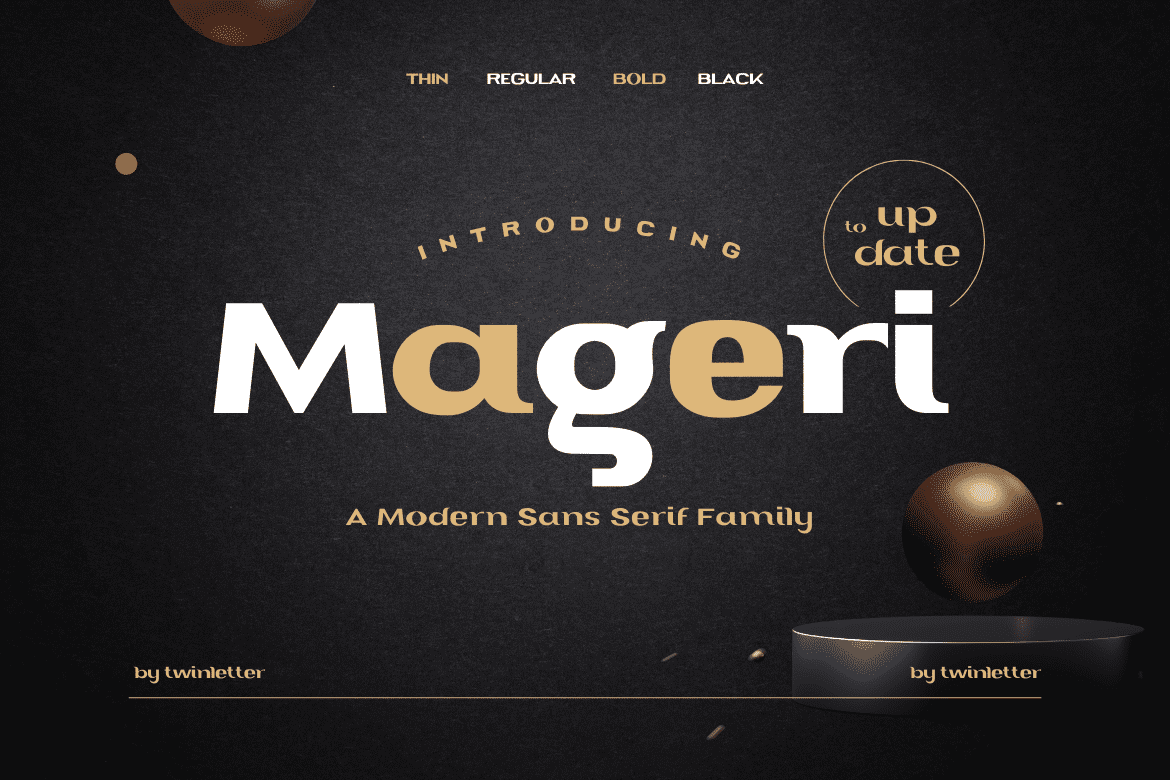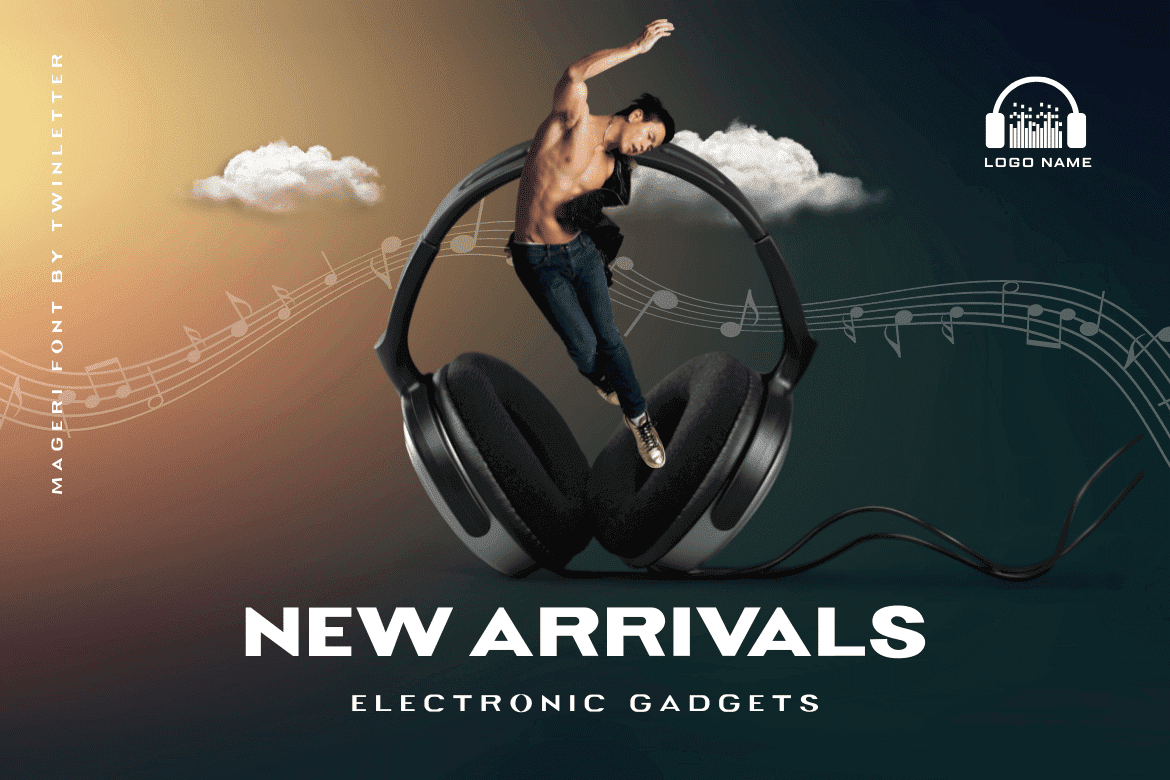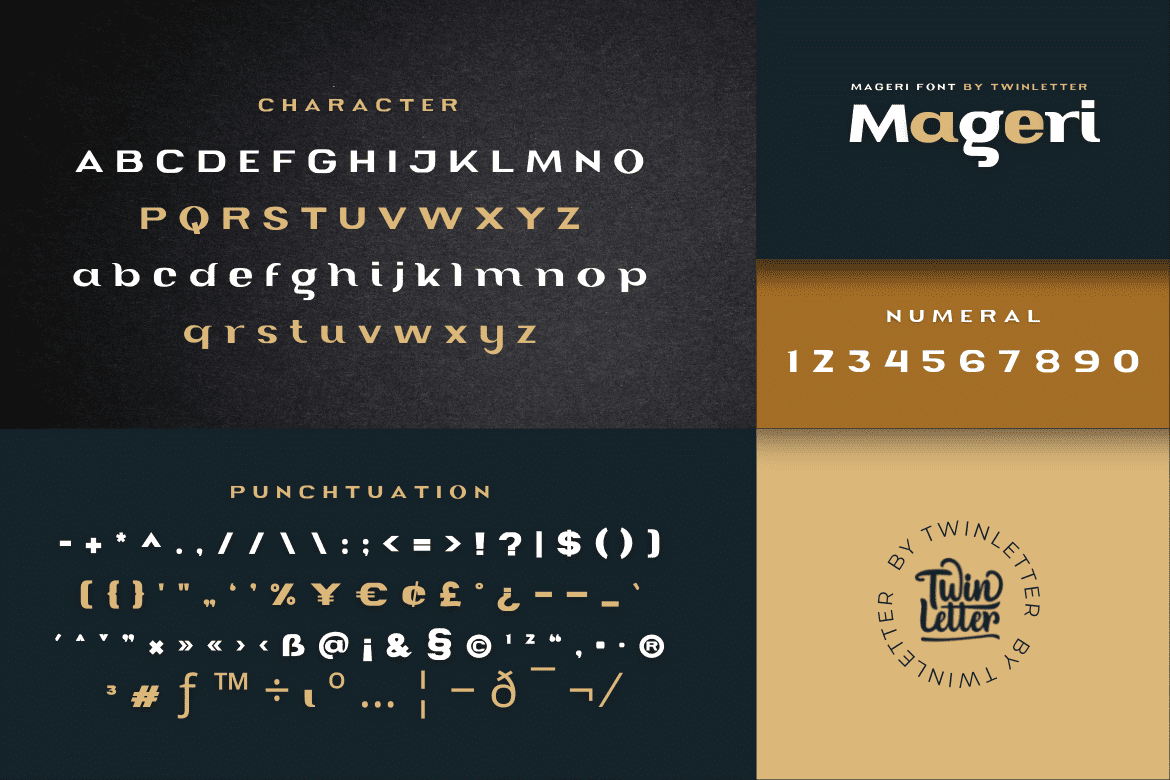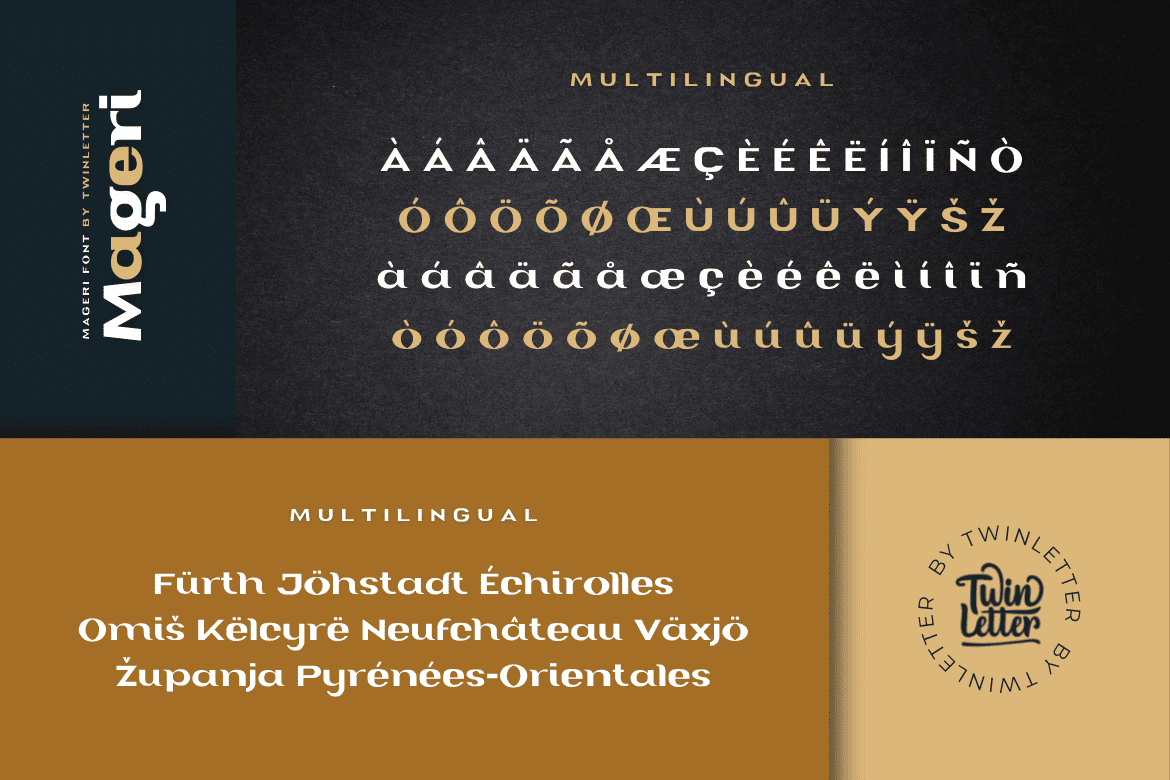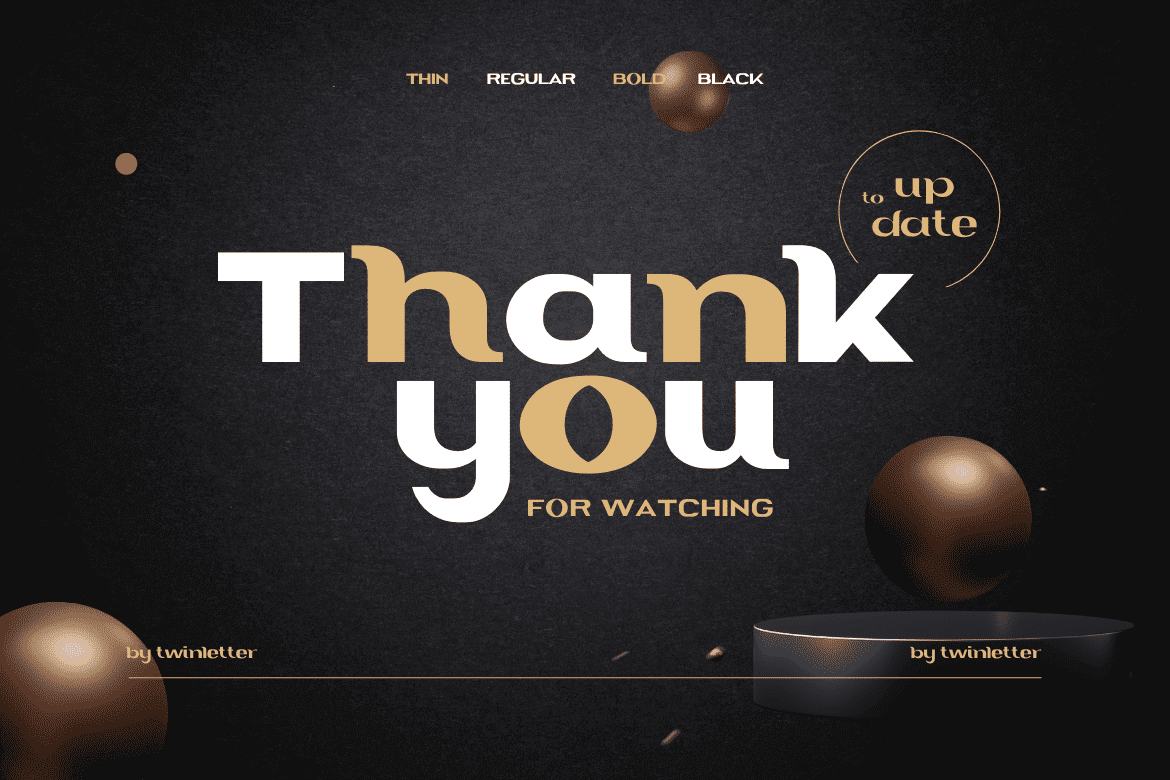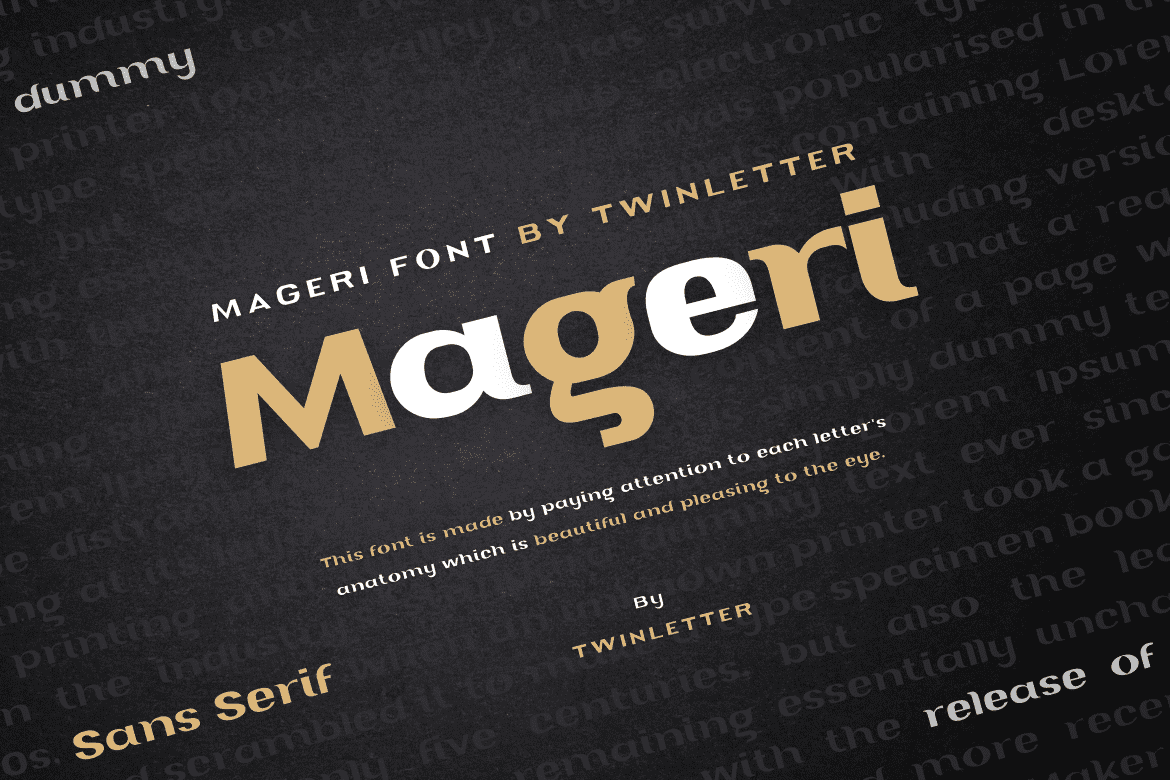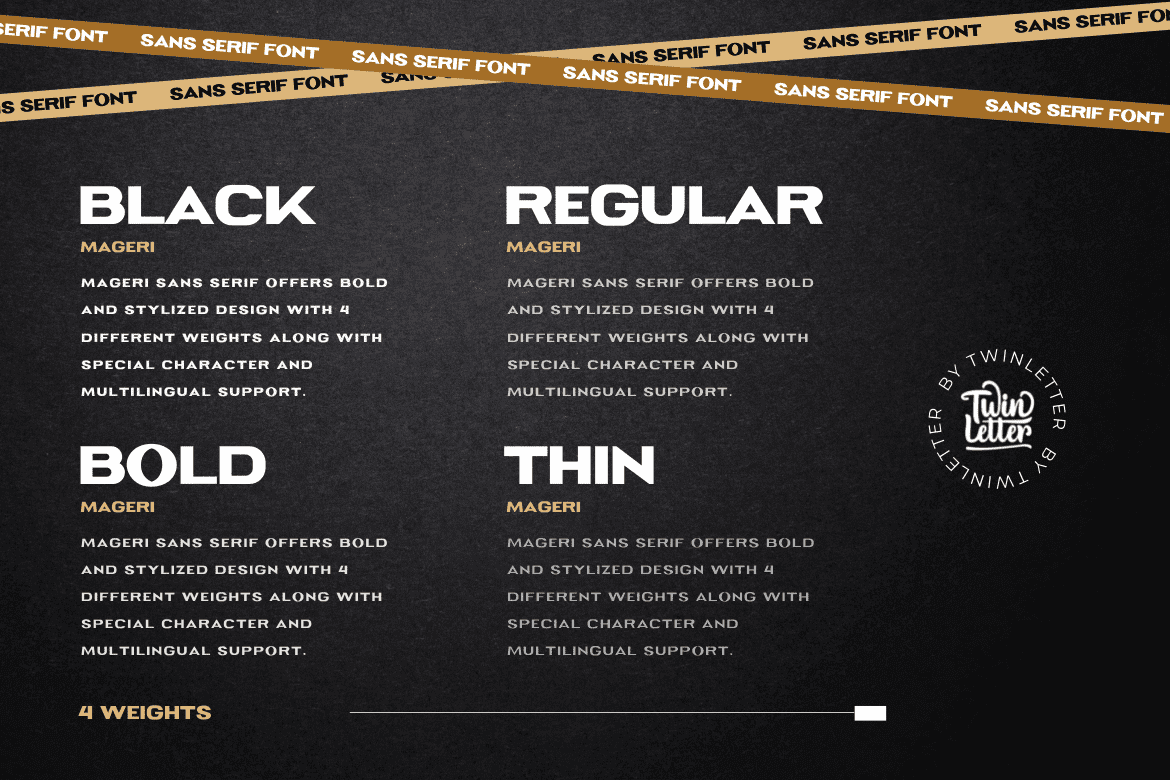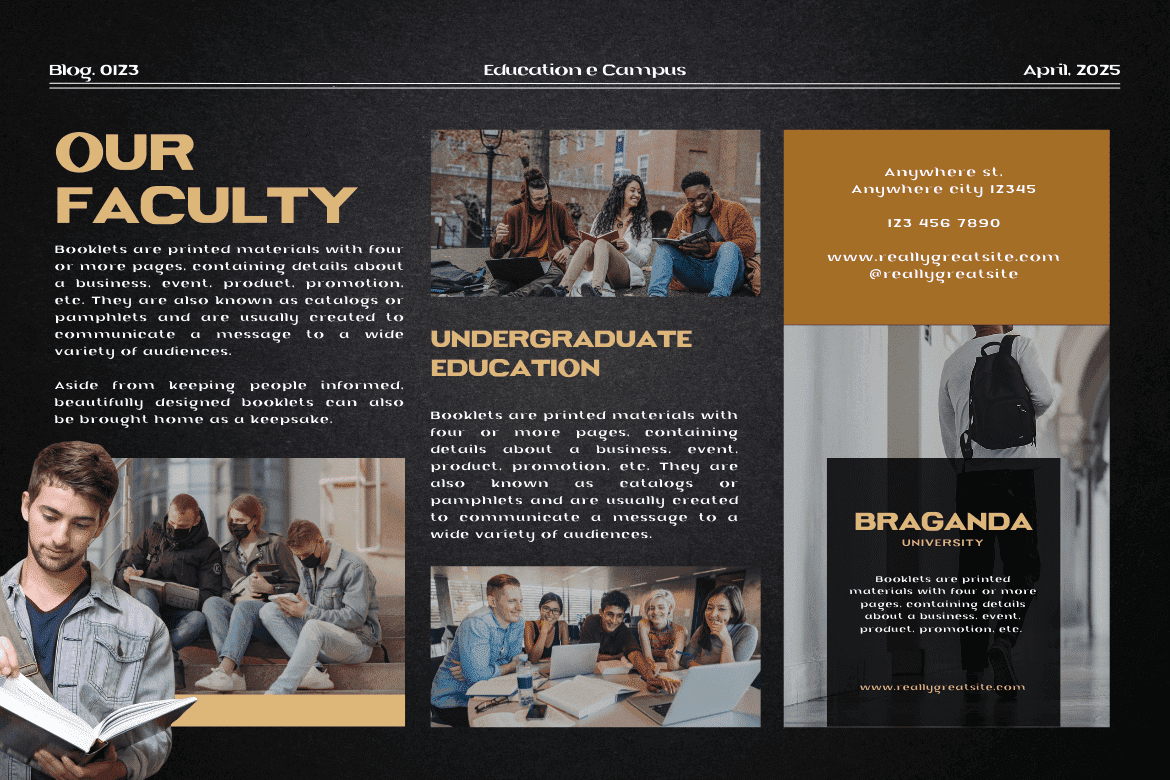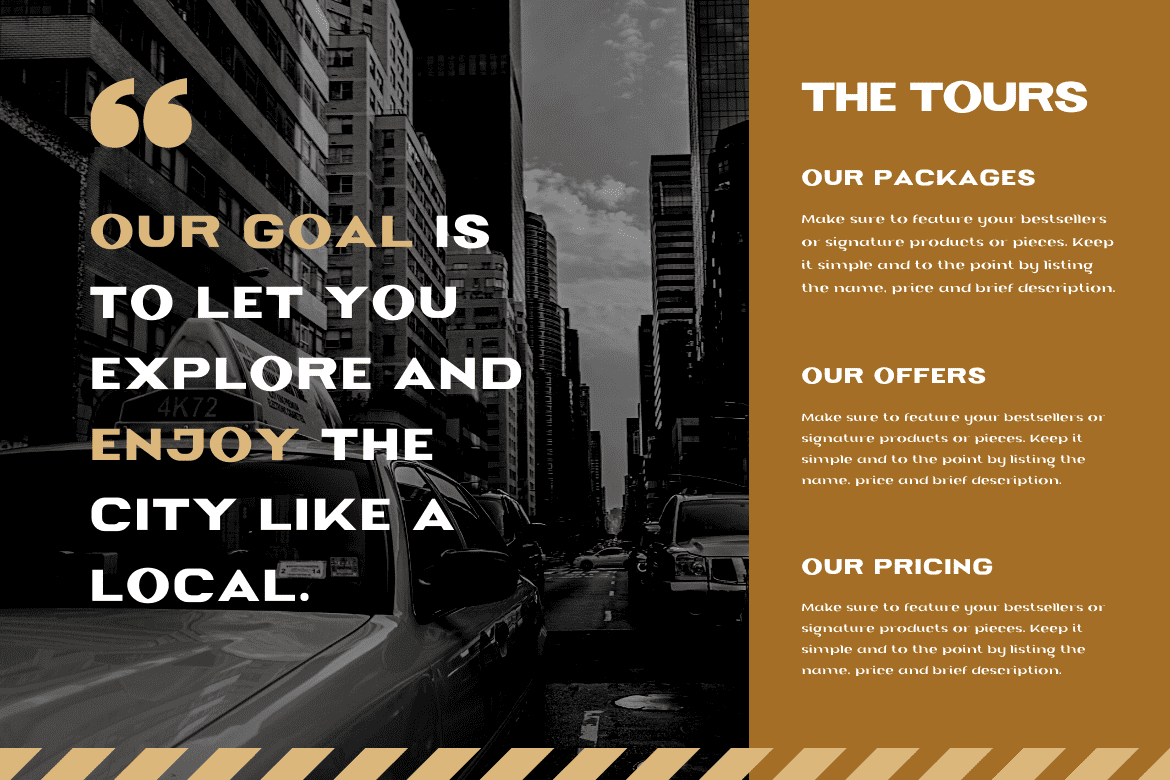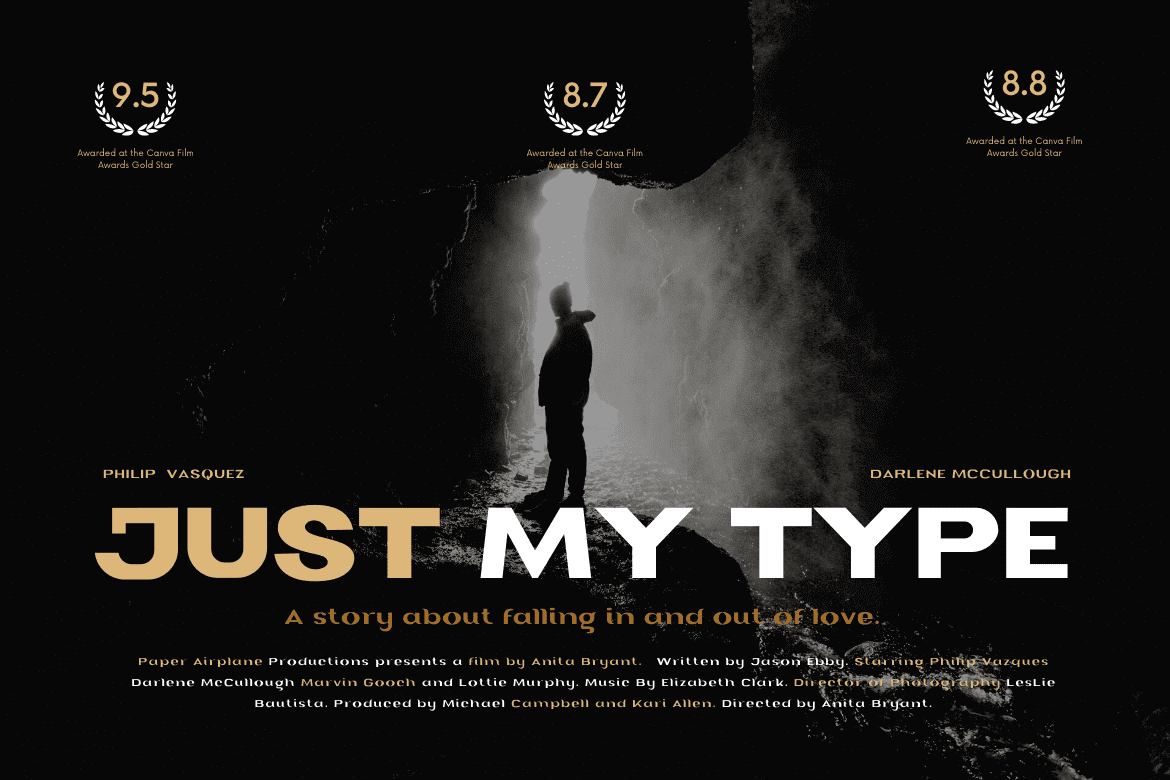
Mageri
Mageri is a beautiful and charming typeface. Designed with smooth curves and a unique shape, Mageri is the perfect font for all of your creative projects, from websites to posters, banners, and more.
• Fonts include multilingual support for; Afrikaans, Albanian, Croatian, Czech, Danish, Dutch, English, Estonian, Finnish, French, German, Hungarian, Italian, Norwegian, Polish, Portuguese, Slovak, Slovenian, Spanish, Swedish